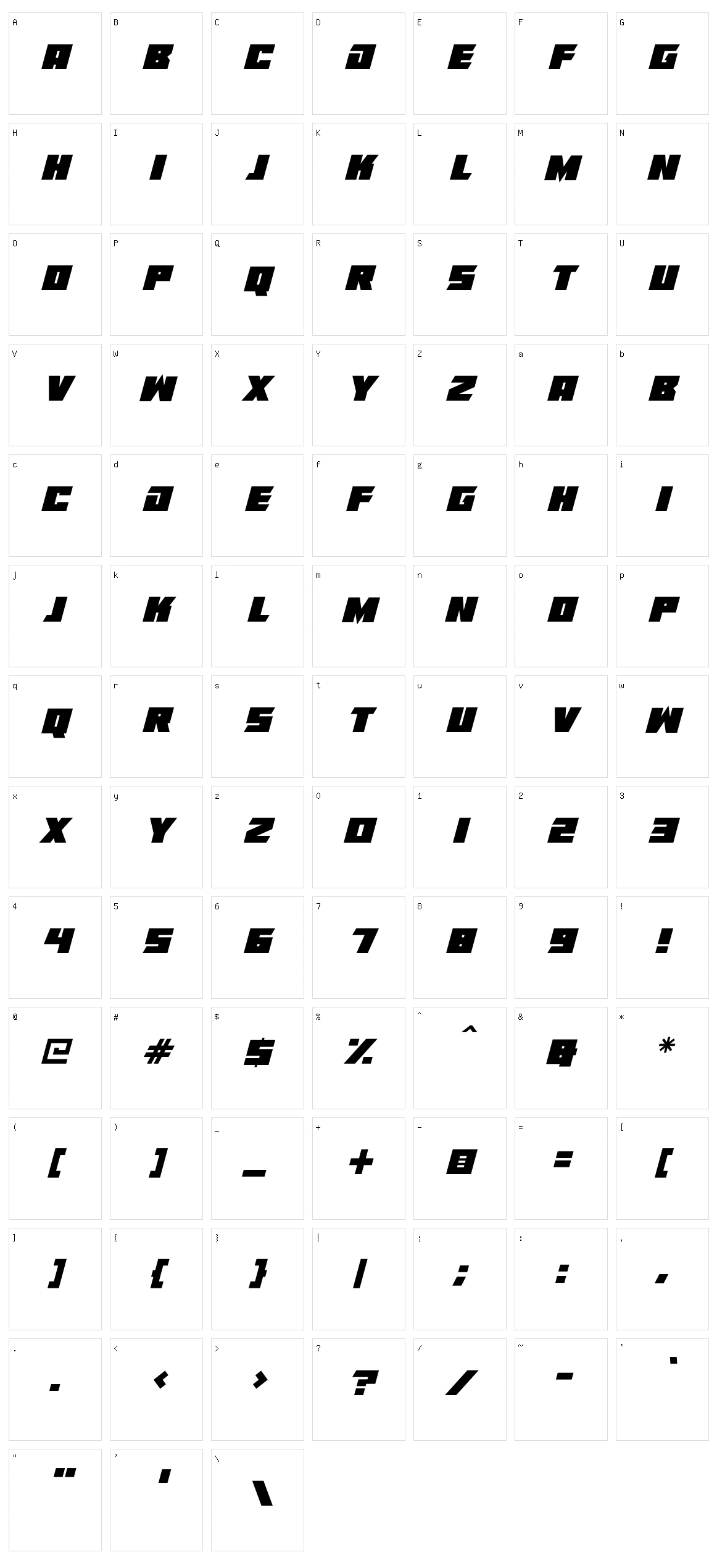
The free font Drum N Bass 22 is carefully designed by Hawtpixel, showcasing a thoughtful balance of creativity and usability and falls under the Square font style. When you download the ZIP file, it contains only 57.9 KB of font files, making it lightweight and quick to download. Please review the license details below to understand permitted usage and distribution rights. If license information is not available, we recommend using this font for personal projects only or contacting the author directly for commercial usage permissions.